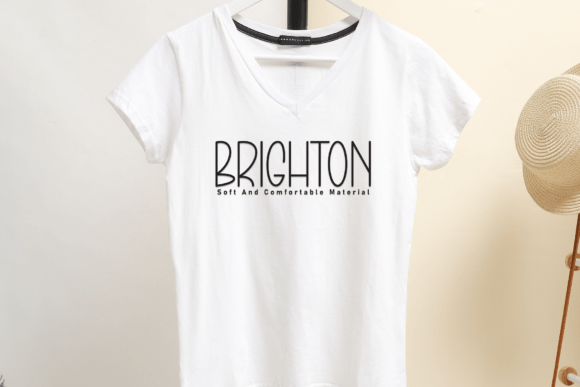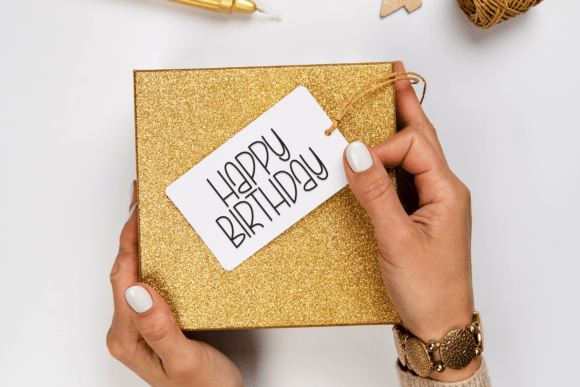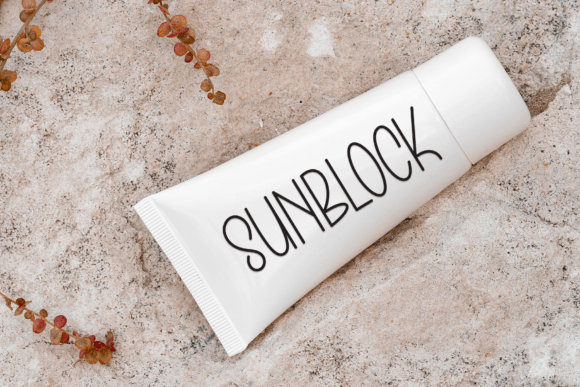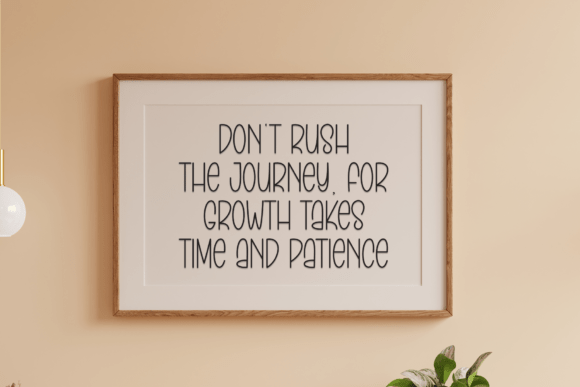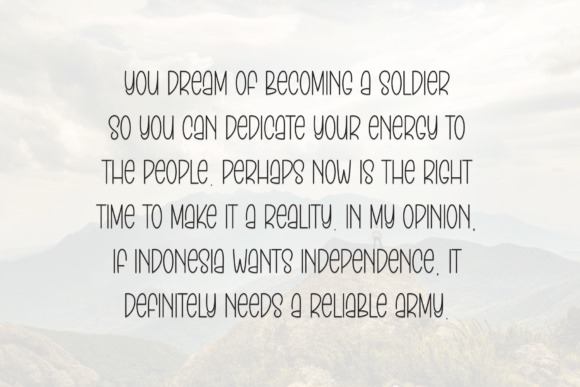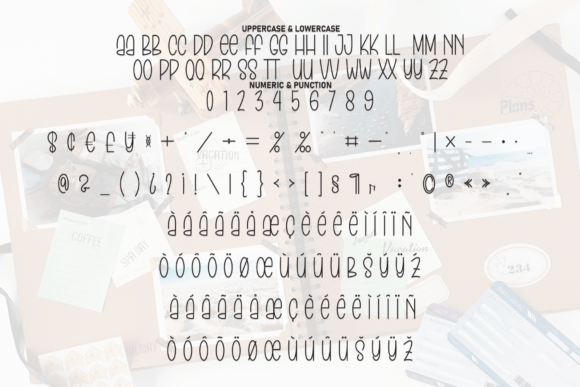
Display Memories Font: Adding a Touch of Whimsy to Your Creations
Are you tired of using the same old fonts for your designs? Do you want to add a touch of personality and whimsy to your creations? Look no further than the Display Memories Font, a charming hand-drawn display typeface that is sure to inject a playful spark into your projects.
The Charm of Display Memories Font
The Display Memories Font is carefully crafted to evoke a sense of joyful peculiarity, making it perfect for wedding invitations, greeting cards, and any artistic projects that need a dash of personality. Its captivating and lively nature shines brilliantly, adding a touch of relaxed elegance, exuberance, and creative flair to your works of art.
With the Display Memories Font, you can effortlessly evoke an atmosphere of pure joy into your designs. Its whimsical and hand-drawn style gives it a unique and playful feel that is sure to capture the attention of your audience. Whether you’re a designer, crafter, or DIY enthusiast, this font is sure to become a favorite in your collection.
What Makes Display Memories Font So Special?
So, what sets the Display Memories Font apart from other fonts? Here are just a few features that make it so special:
- Hand-drawn style: Each letter is carefully hand-drawn, giving the font a unique and personal touch.
- Whimsical feel: The font has a playful and whimsical feel that’s perfect for adding a touch of personality to your designs.
- Captivating and lively: The font’s captivating and lively nature makes it perfect for grabbing the attention of your audience.
- Versatile: The Display Memories Font is versatile and can be used for a variety of projects, from wedding invitations to greeting cards and more.
How to Use Display Memories Font in Your Designs
Using the Display Memories Font in your designs is easy. Here are a few tips to get you started:
- Pair it with other fonts: Pair the Display Memories Font with other fonts to create a unique and interesting contrast.
- Use it for headings: Use the Display Memories Font for headings and titles to add a touch of personality to your designs.
- Experiment with colors: Experiment with different colors to find the perfect combination that complements your design.
Why Designers and Crafters Love Display Memories Font
Designers and crafters love the Display Memories Font for a variety of reasons. Here are just a few:
- High-quality design: The font is designed with high-quality and precision, ensuring that it looks great in any design.
- Unique and creative: The font’s unique and creative style makes it perfect for designers and crafters who want to add a touch of personality to their designs.
In conclusion, the Display Memories Font is a charming hand-drawn display typeface that is sure to add a playful spark to your creations. Its captivating and lively nature shines brilliantly, imbuing wedding invitations, greeting cards, and any artistic projects with a dash of joyful peculiarity. With its easy-to-use design, high-quality construction, and unique style, it’s no wonder that designers and crafters love this font.